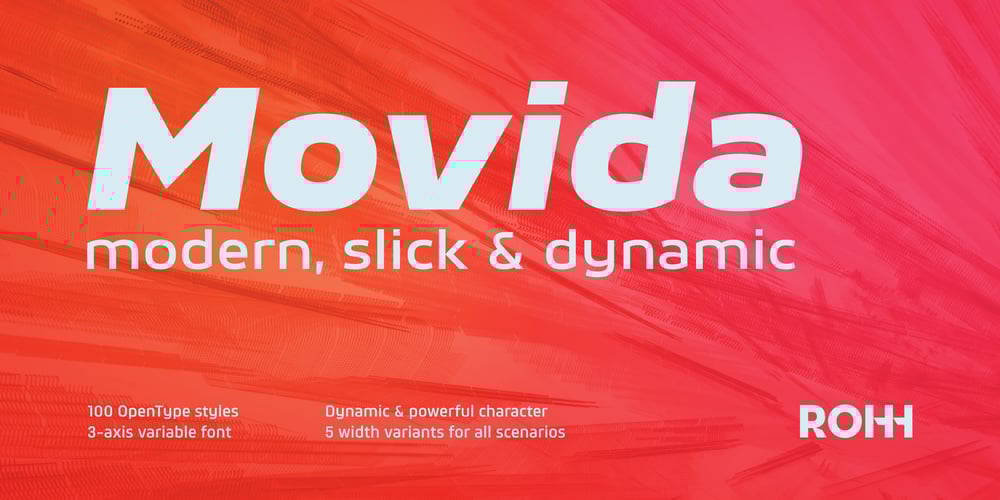
Movida Font Family was designed by Roch Modrzejewski and published by ROHH. Movida contains 101 styles and family package options. Movida™ is a 101-font mega family – modern, spurless, with geometric flat-sided nature. Its versatile character and huge choice of styles let it serve as a charismatic display typeface as well as clean contemporary tool for setting paragraph text.Its dynamic personality fits perfectly to such industries as sports, gaming, technology, streetwear, automotive. Movida works great for logo design & branding, magazine editorial use, web design, user interfaces and mobile applications.Movida features a super-flexible 3-axis variable font allowing fluent adjustments to width, weight and italic angle. This single font contains all the styles and features of the whole mega family.Main features: 5 widths (Narrow, Condensed, Normal, Expanded, Wide) 10 weights for each width (from Hairline to Black) + 10 corresponding italic styles 1 variable font (3 axes: weight, width, italic angle) modern, slick & sharp spurless design large x-height improving legibility in small sizes flattened oval shapes, adding vertical rhythm and elegance to narrow styles extended latin language support OpenType features (case sensitive forms, standard and discretionary ligatures, stylistic sets, contextual alternates, lining, oldstyle and tabular figures, slashed zero, fractions, superscript and subscript, ordinals, currencies and symbols)